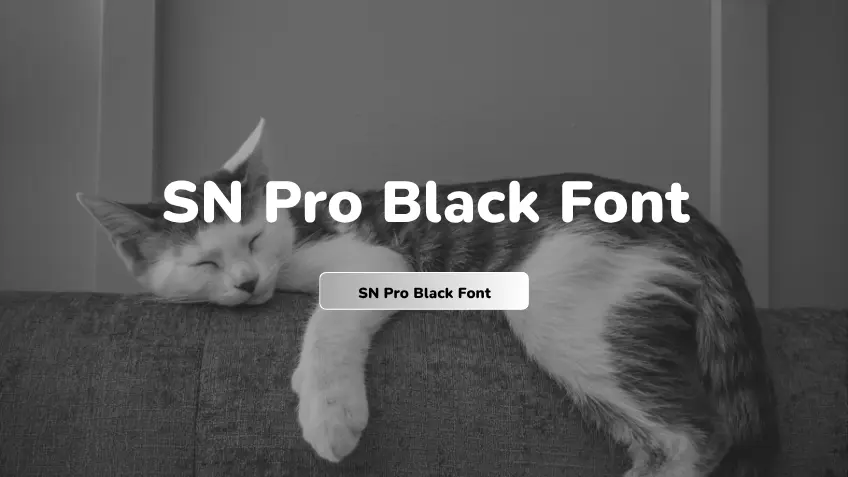
SN Pro Black
SN Pro Black Font
The font SN Pro Black, designed by Tobias Whetton, falls under the Sans Serif category & SN Pro font family. Its smooth, flowing letterforms make it a versatile choice for projects that require both elegance and readability. SN Pro is particularly well-suited for Book Text, Branding, UI/UX Design, Identity, Display, Digital Design and code editors. With its balance of simplicity and decorative appeal, this font brings a polished touch to both personal and professional designs.